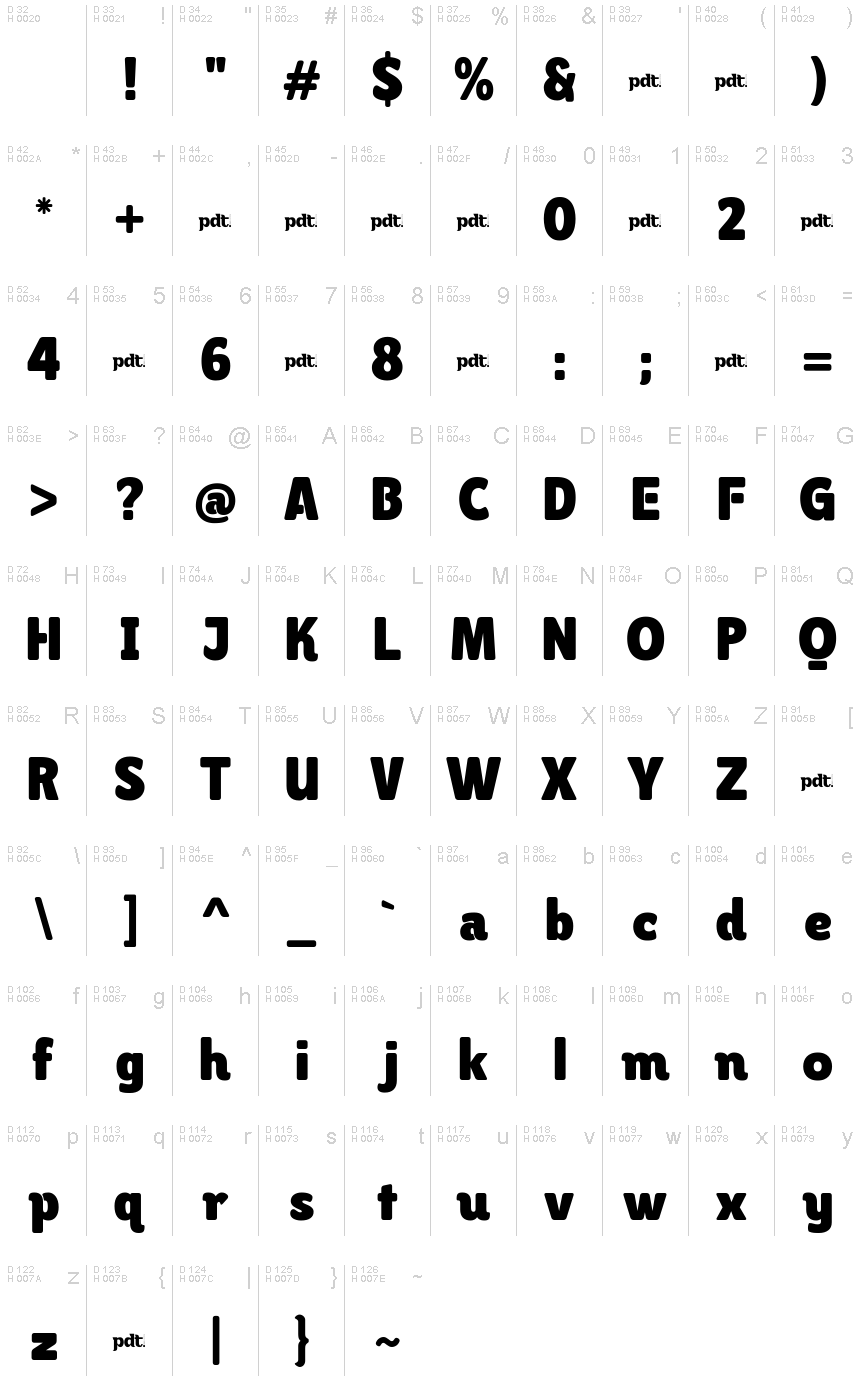
REKUSENtrial Regular
Rekusen is a striking sans-serif font that commands attention with its bold, unapologetic character. Designed by productype, this font exudes confidence and a distinct personality, making it an eye-catching choice for projects that demand a strong, impactful visual presence. The clean, geometric lines and well-defined letterforms create a modern, sophisticated aesthetic that evokes a sense of authority and professionalism.
Rekusen's versatility shines through in its adaptability to a wide range of design applications. Its bold, distinctive style lends itself particularly well to headlines, branding elements, and attention-grabbing display text. Whether used in digital interfaces, print materials, or packaging designs, Rekusen's unique character will help your message stand out and leave a lasting impression on the viewer.